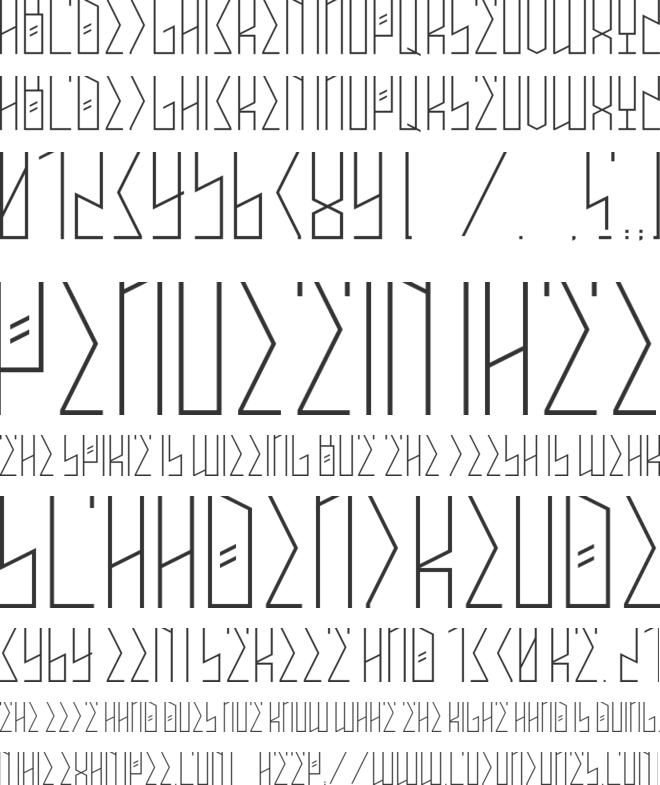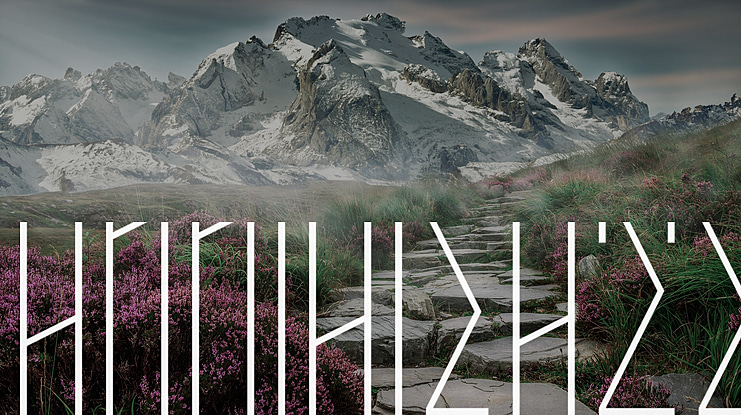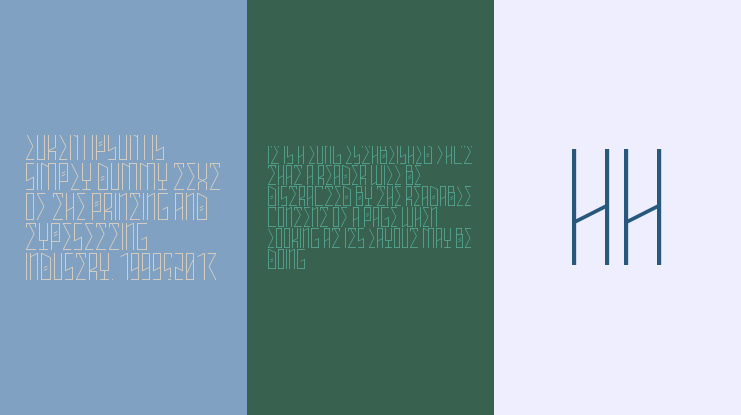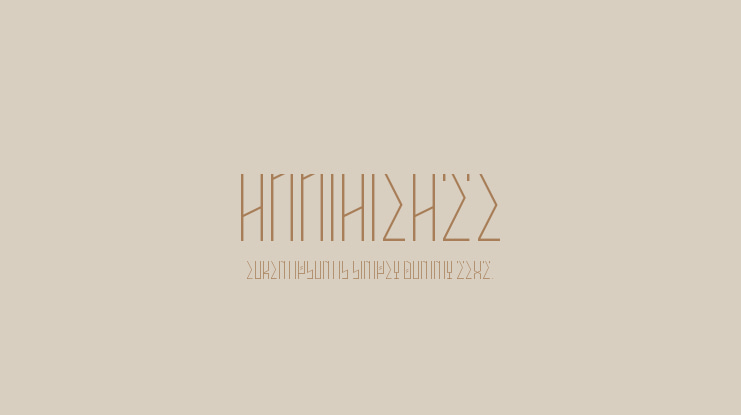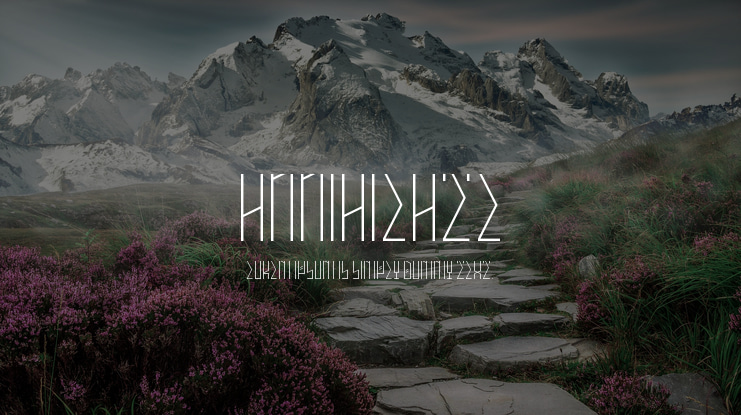
ANNIHILATE Font
This is a geometric font based on a West Coast graffiti hand style. The name is taken from my original tattoo sketch, which said "Annihilate All Unbelievers"